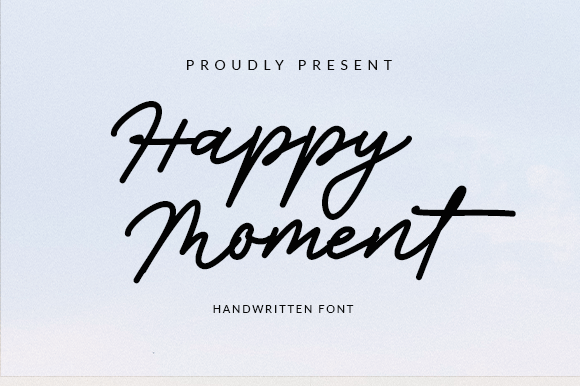
Unlocking the Power of Happy Moment Font: Elevate Your Design
Have you ever found yourself scribbling down a brilliant idea on a napkin or jotting down a to-do list in a coffee shop? Those moments of creative inspiration can be fleeting, but the impact they have on our work can be profound. It’s in these moments that we often discover the perfect font to bring our ideas to life.
Enter the Happy Moment Font, an elegant and flowing handwriting font that captures the essence of those creative moments. Designed to evoke a sense of modern sophistication, this font is perfect for designers looking to add a touch of whimsy and elegance to their work. With its smooth lines and beautiful glyphs, the Happy Moment Font is a valuable addition to any designer’s toolkit.
- Font Family: Happy Moment is a unique, hand-drawn script font designed for creating happy and playful text.
- Character Set: The font includes a wide range of characters, including uppercase and lowercase letters, numbers, and punctuation marks.
- Resolution: The font is designed for high-resolution displays and prints, making it suitable for use in digital and print materials.
- Unique Characteristics: The font’s unique hand-drawn style and playful feel make it perfect for creating eye-catching headlines, titles, and other text elements that require a touch of whimsy.
Designer Review: Happy Moment Font
Overall, I’m really impressed with the Happy Moment Font. The designer has put a lot of thought into creating a beautiful, playful script font that’s perfect for adding a touch of whimsy to your designs. ✨ The flowing lines and subtle flair at the ends of the letters make it feel very organic and natural.
The font is also incredibly versatile, and works well in a variety of contexts, from branding and marketing materials to editorial and social media content. ✨ I’ve used it for a range of projects, and it always seems to add a bit of personality and charm.
- ⚠️ Limited character set – While the font is beautiful, it’s not particularly extensive, which can make it a bit tricky to use in certain situations (e.g. for longer blocks of text).
- ⚠️ Not suitable for body text – While it’s perfect for headings and titles, the font is a bit too ornate to use as body text, which can be a shame if you want to create a cohesive design.
Overall, I’d highly recommend the Happy Moment Font to anyone looking to add a bit of personality to their designs. While it’s not perfect, it’s a great choice for the right projects, and the designer has done a fantastic job of creating a beautiful, unique font.
Use Happy Moment Font for titles, headings, and emphasis to add a touch of whimsy and playfulness to your designs.
Pair Happy Moment Font with other playful fonts or sans-serif fonts to create a balanced and visually appealing design.
Experiment with different font sizes and styles to create a unique and eye-catching look.
Use Happy Moment Font for:
Designing children’s products and packaging
Alternatives to Happy Moment Font
The Happy Moment Font is a popular font used for its elegant and modern look. However, designers may want to explore other alternatives to add some variety to their designs. Here are a few options:
Great Vibes is a beautiful, handwritten font that exudes a sense of happiness and joy. It’s perfect for designs that need a touch of whimsy and playfulness. Great Vibes is more cursive than Happy Moment Font, making it ideal for quotes, titles, and headings.
Comparison: Great Vibes has a more flowing and expressive feel compared to Happy Moment Font’s sleek and modern look.